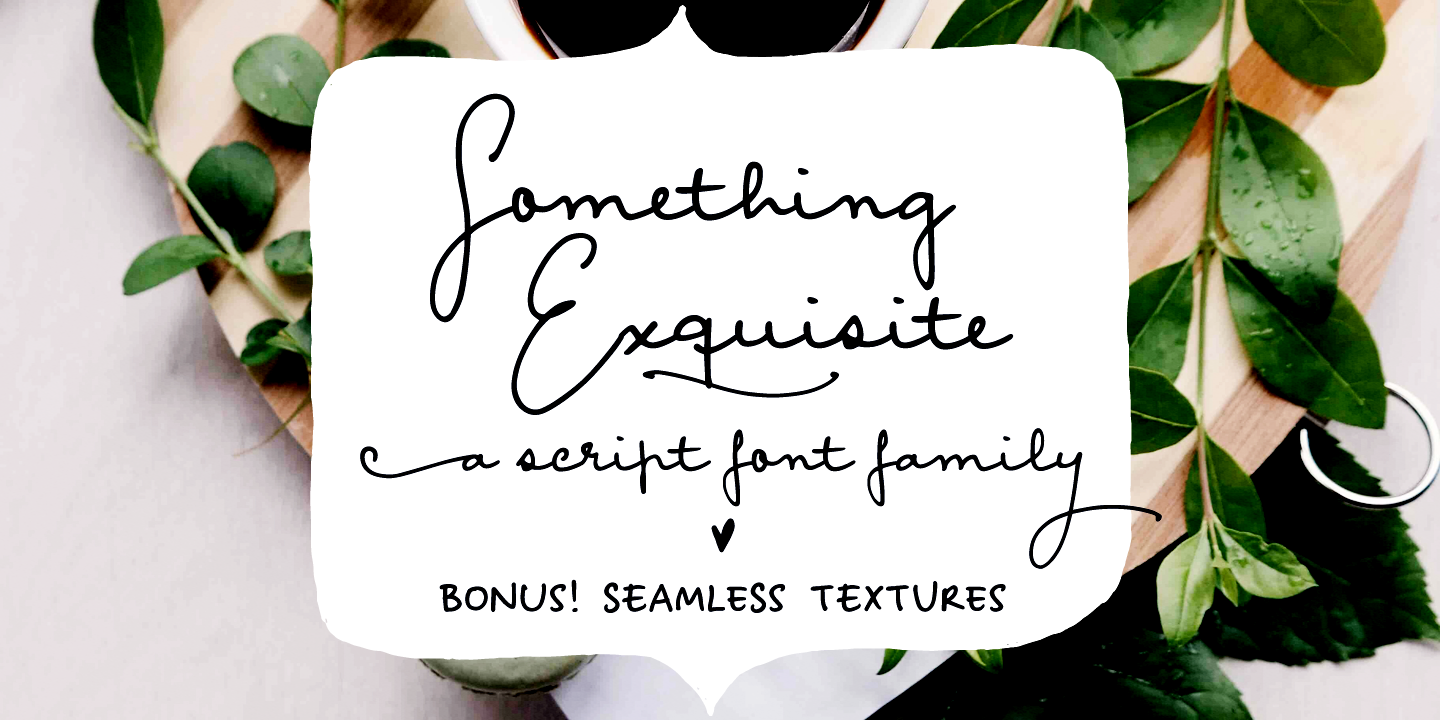
Discover the charming Something Exquisite Font Free Download, a cute yet elegant script typeface by Ana Parracho that adds a personalized, handwritten touch to your designs. This font is perfect for creating a sophisticated, heartfelt aesthetic. However, please note that you must purchase this font for commercial use. For testing purposes, you can download it for free and explore its graceful style.
The Something Exquisite Font is ideal for various applications, such as designing elegant wedding invitations, crafting heartfelt greeting cards, creating stylish logotypes, or adding a refined touch to social media posts and branding. Its versatility and included swashes make it a top choice for projects that demand a delicate, custom look.
Why is the Something Exquisite Font Free Download so exciting? Its flowing script, complete with accents, numbers, ligatures, and bonus ornaments, offers a unique, hand-crafted charm. The font’s elegant design, with small caps and swashes in separate files, ensures your projects stand out with a blend of modern and classic sophistication.
The Something Exquisite Font family includes six styles: Regular, Caps, Small Caps, Swash1, Swash2, and Ornaments, providing flexibility for diverse design needs. These variations allow you to experiment with different effects, perfect for both print and digital media.